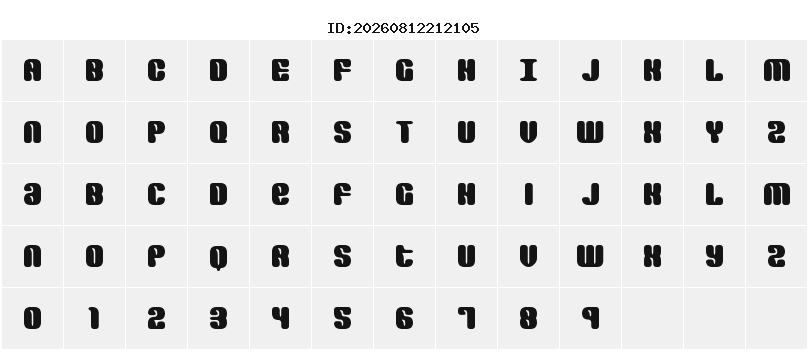
• Font Name: Revert Round BRK
• Designer: ÆNIGMA FONTS - Brian Kent
About Revert Round BRK.ttf
Revert Round BRK.ttf is a modern, elegant sans-serif font designed for ultimate readability and visual harmony. Perfect for branding, headlines, web design, and print materials.